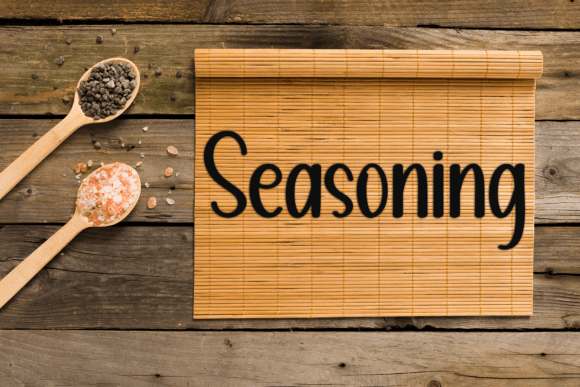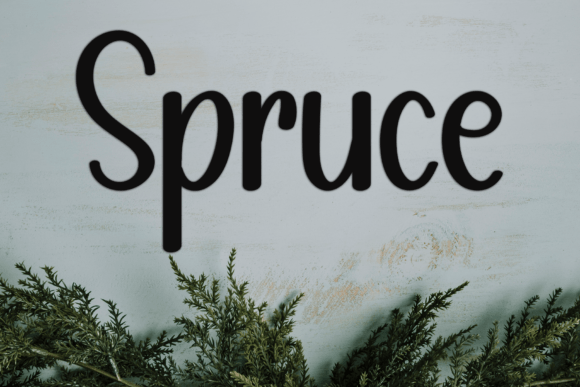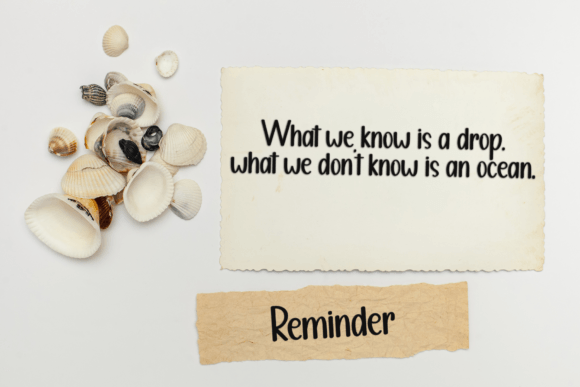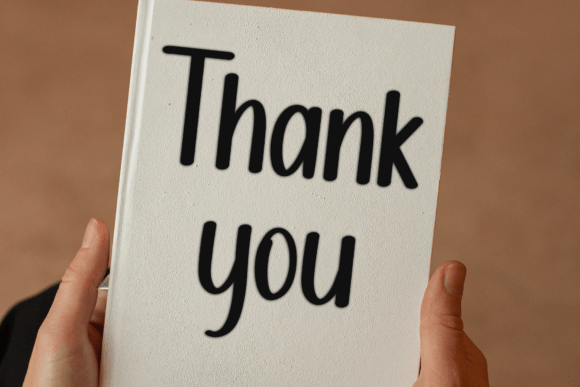
Limited Bundle Font
Limited Bundle is a stylish handwritten font that epitomizes the expressive beauty of brush lettering. With confident strokes and dynamic letterforms, it achieves a perfect blend of modernity and artistic flair. Ideal for projects seeking a bold and contemporary handwritten aesthetic, February adds a touch of expressive elegance to your designs.